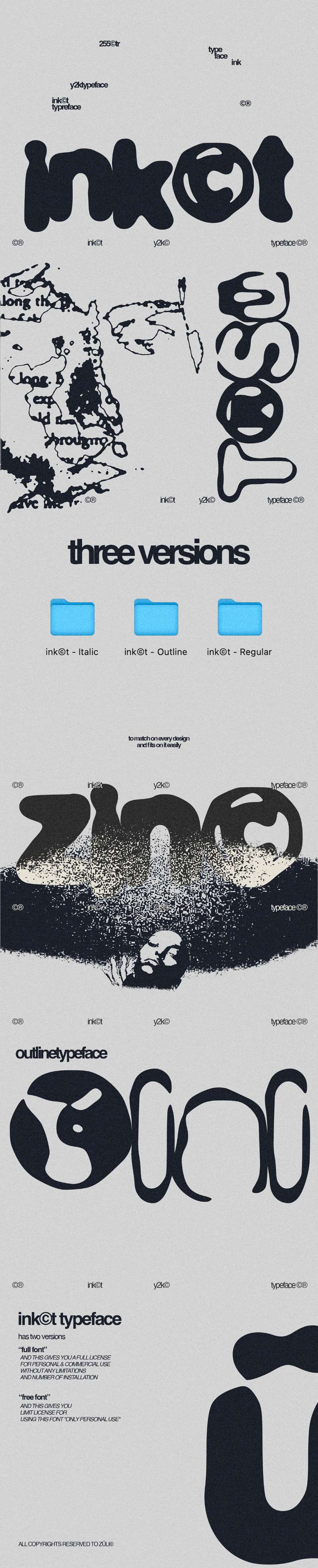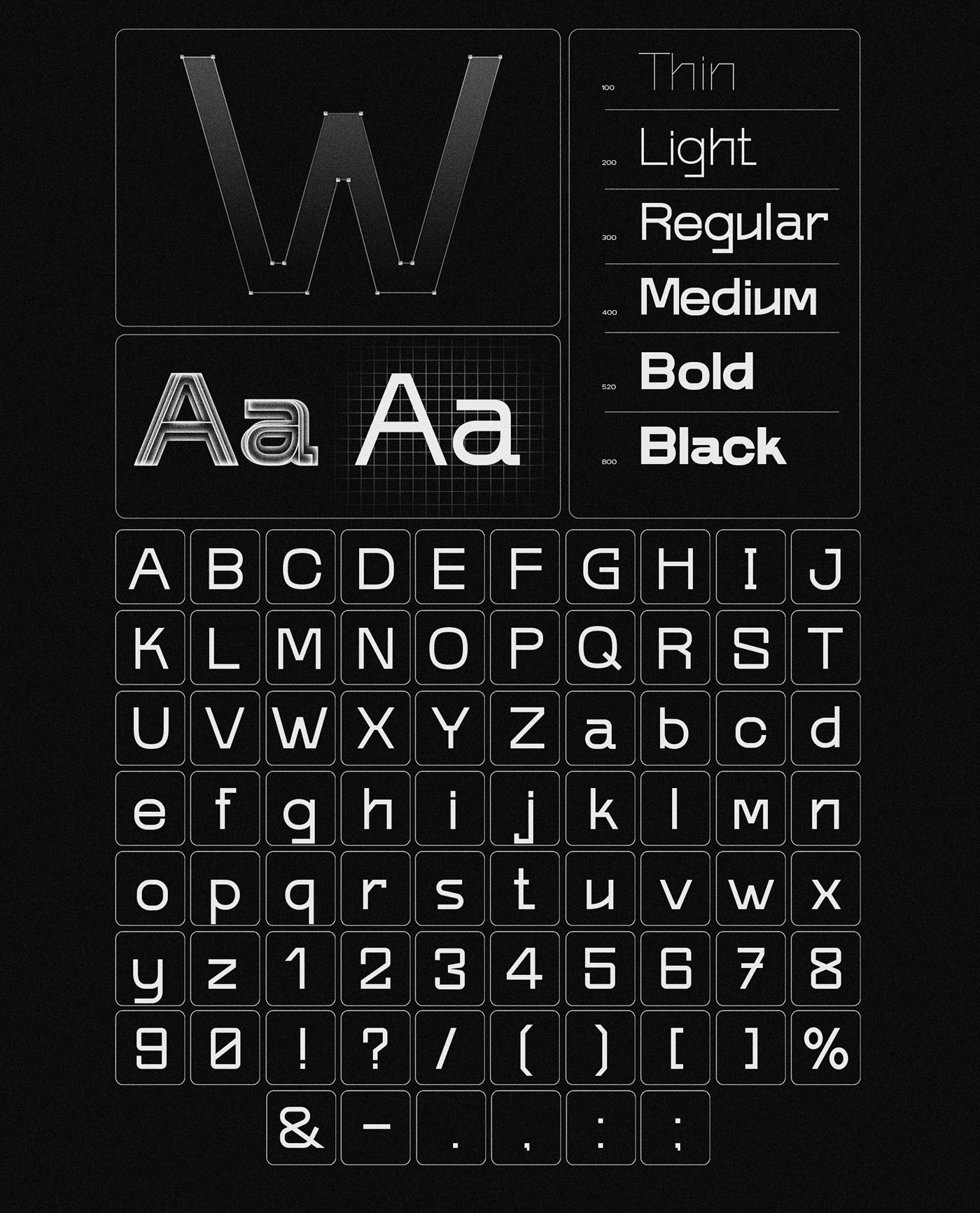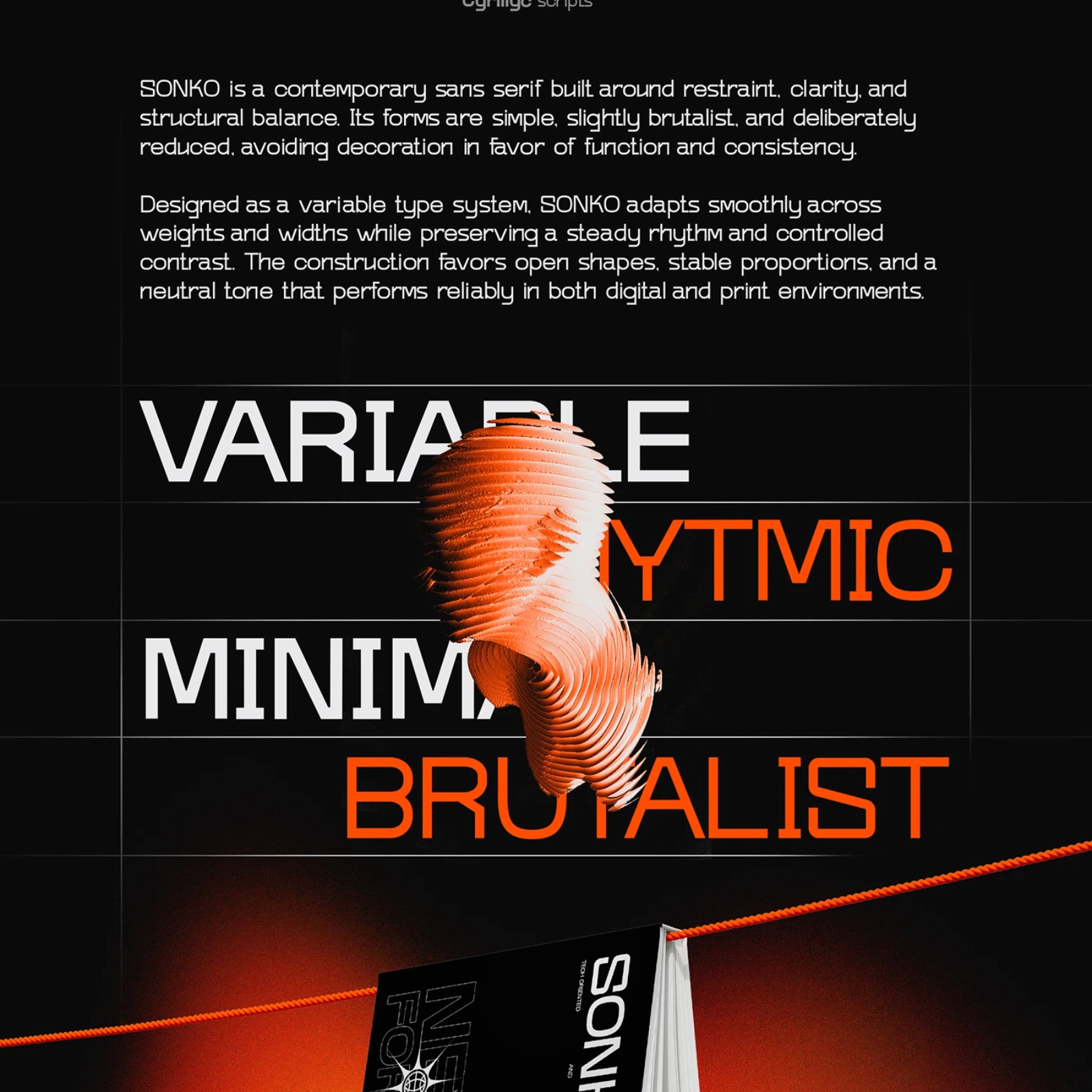
Friday Free Fonts: Datatype, SONKO, and inkt
Three free fonts worth downloading right now, from a typeface that draws charts inside text to a brutalist variable system and a blobby Y2K display face.
Every Friday, the hunt begins. Designers scroll through specimen pages, test drive new releases, and look for that one typeface that shifts everything. This week delivers three free fonts that do more than fill a gap in the type library. They open new directions.
Free Fonts That Push Typography Forward
Datatype by Frank Tisellano is the most unusual of the three. It is a variable OpenType font that renders inline data visualizations: bar charts, line graphs, and dot plots, directly inside text. The concept is simple but the execution goes deep: you type a sequence, and the glyphs themselves become the chart. Google Fonts hosts it for free, and the type tester lets you experiment with live data syntax right in the browser.
SONKO by Egor takes a different route: pure structure, zero decoration. This variable font spans weights from Thin to Black, and every letterform is stripped to its structural core: tight apertures, flat terminals, and consistent stroke width across the entire character set. Latin and Cyrillic scripts are both supported.
SONKO free font specimen showing brutalist variable type system
The Behance specimen is worth visiting on its own: bold orange and black 3D renders, editorial layouts, and book mockups show the typeface at every scale. SONKO is free to try and fits anywhere that calls for confident, no-nonsense typography.
ink©t by Züli rounds out the trio with pure personality. This display typeface leans into the Y2K revival with blobby, ink-like forms that feel both nostalgic and current. Three versions ship together: Regular, Italic, and Outline. Each with the same organic, hand-pulled quality.
inkt free font Y2K typeface specimen with blobby ink-like forms
The character shapes bulge and taper like wet ink on smooth paper, giving headlines an immediate visual identity. It works best at large sizes where the fluid contours can breathe. For posters, social graphics, or editorial headers that need to stop the scroll, ink©t delivers without apology.